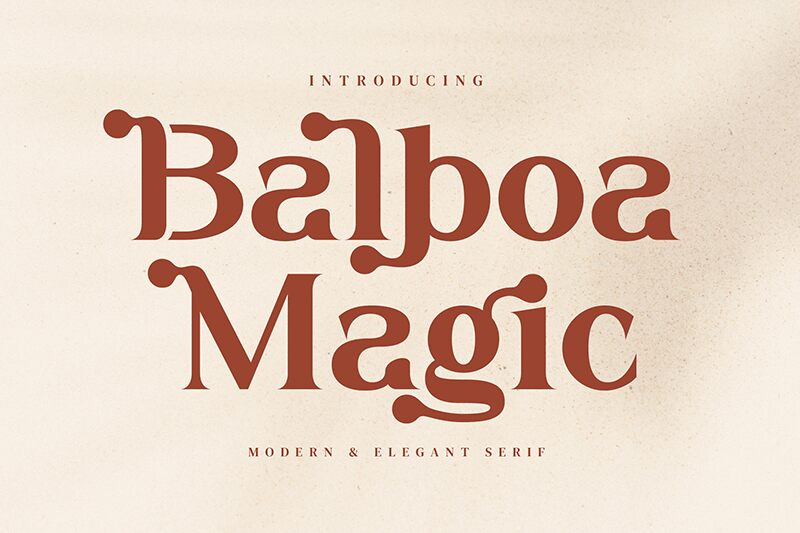
Balboa Magic font family by Aqeel_Art is a free serif font in 2 styles with a magical charm. A beautifully crafted elegant modern serif, this font has stylized terminals and other ornamental details which makes it decorative. It looks very sophisticated with a clear retro-inspired style suitable for branding and headlines among other designs. It is especially suitable for platforms that require an artistic flair.
This distinctive Balboa Magic font can be used for logos, visual identities, magazine covers, advertisement posters, postcards, invitation cards, package designs, banners, posters, t-shirts, labels, and more.